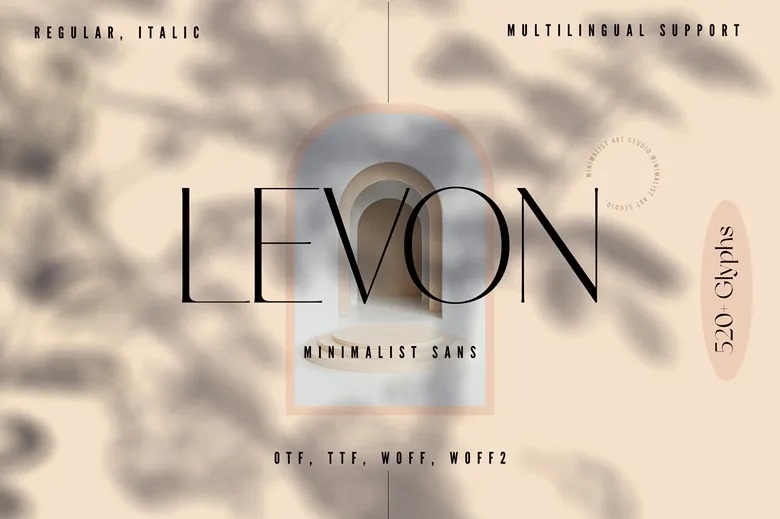
Levon Font
Levon is a clean, stylish sans-serif font made for modern, minimalist design projects. Its sleek look adds a touch of sophistication to any design. You can use Levon for branding, marketing, web, or print work.
Levon Sans Serif Font